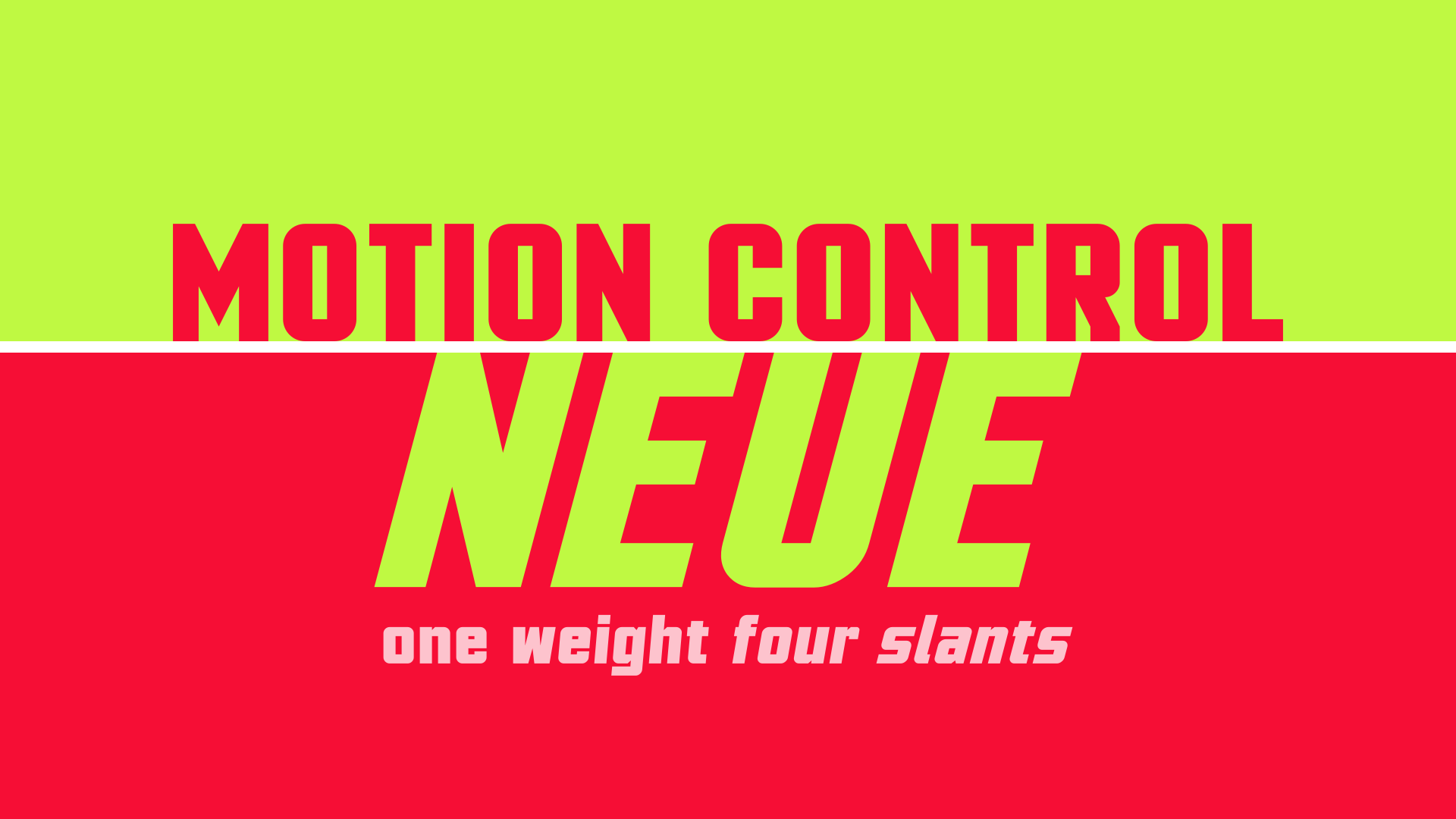
Motion Control Neue: a Sturdy Font
Motion Control Neue is a revamp of the popular free font Motion Control. Some (amateur mistakes in) letterforms and spacing have been tweaked to make it look better. Motion Control now has four different obliqueness levels. It also has vast multilingual availability, with added Greek, Cyrillic, Hebrew, and Thai support, as well as Latin Extended-A support. OpenType alternate letterforms have been included.